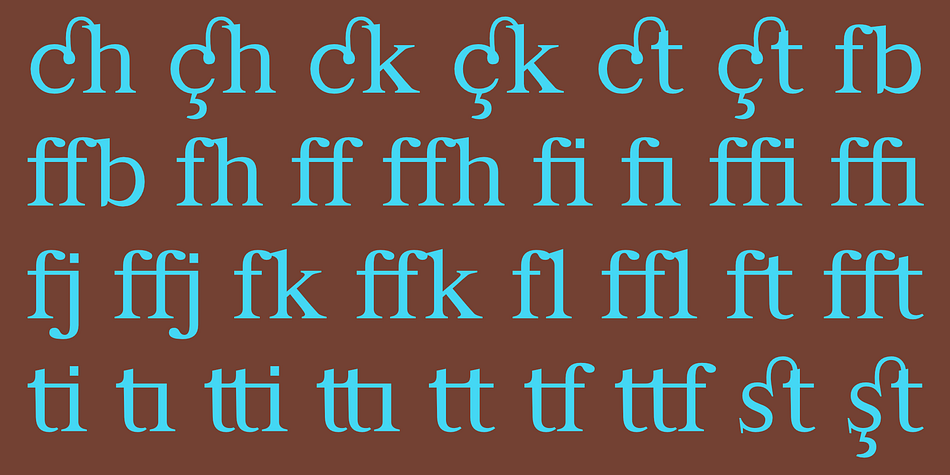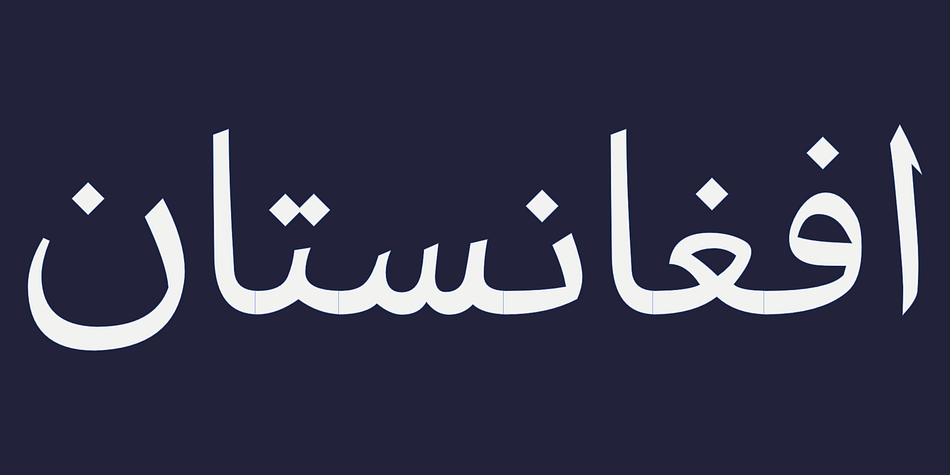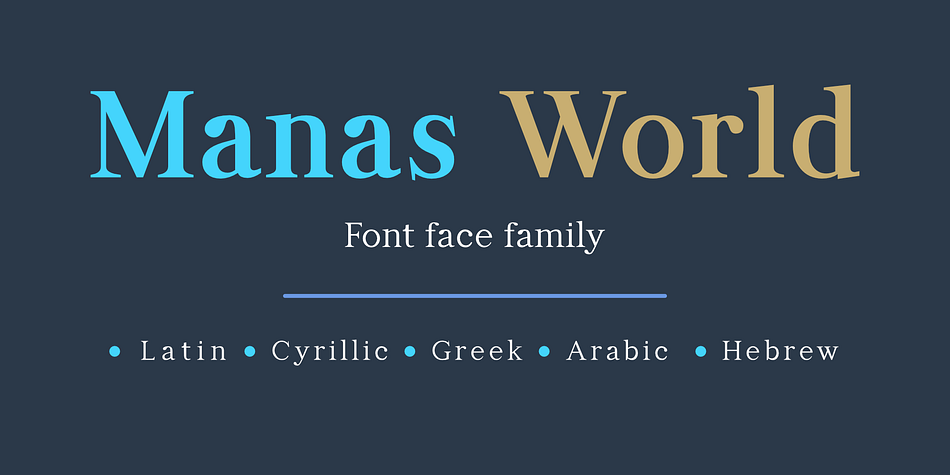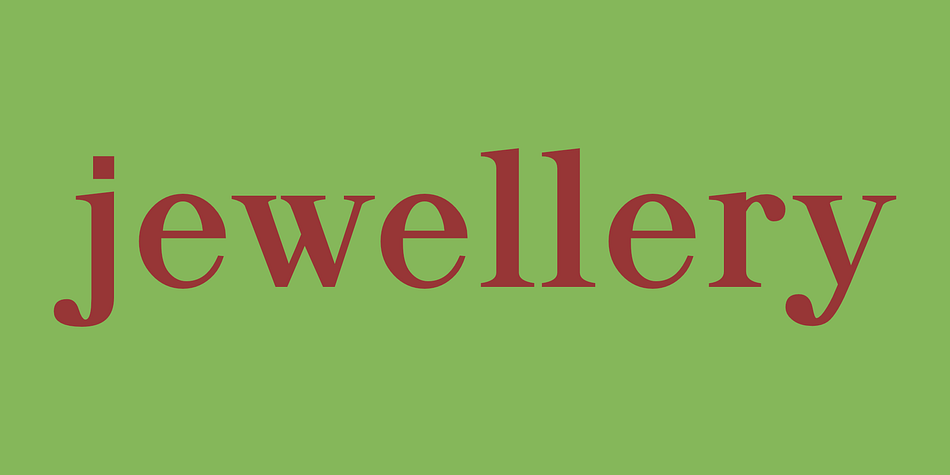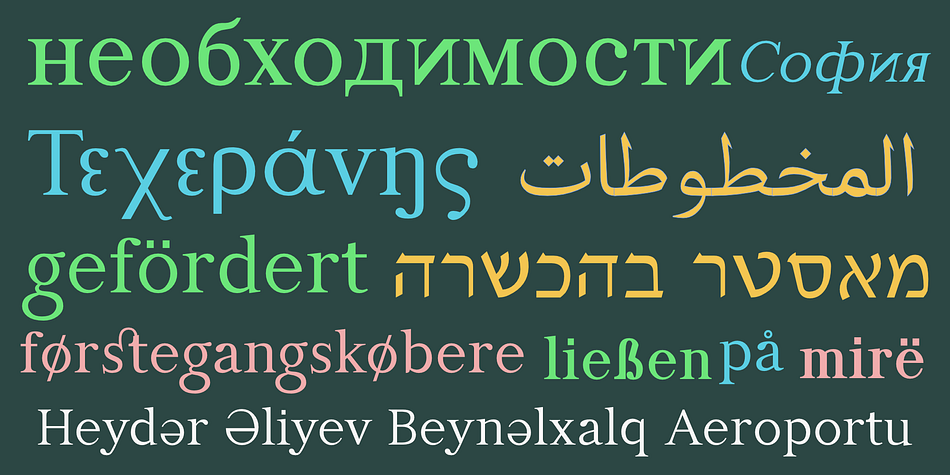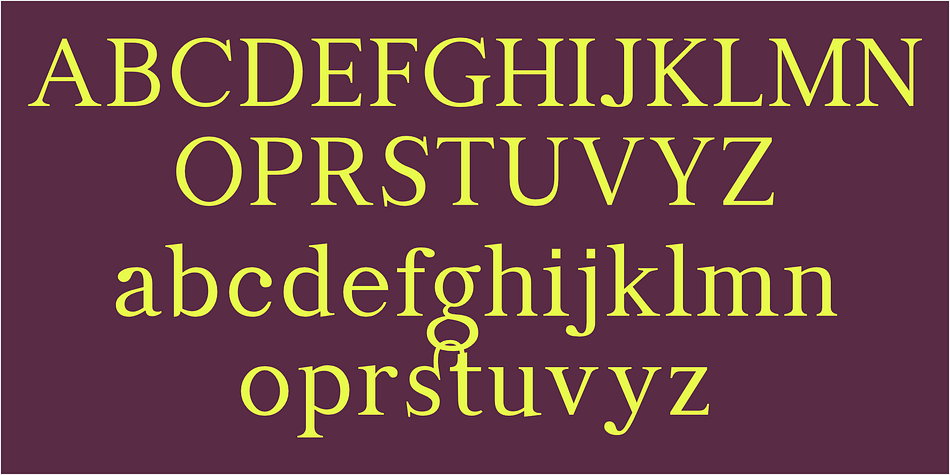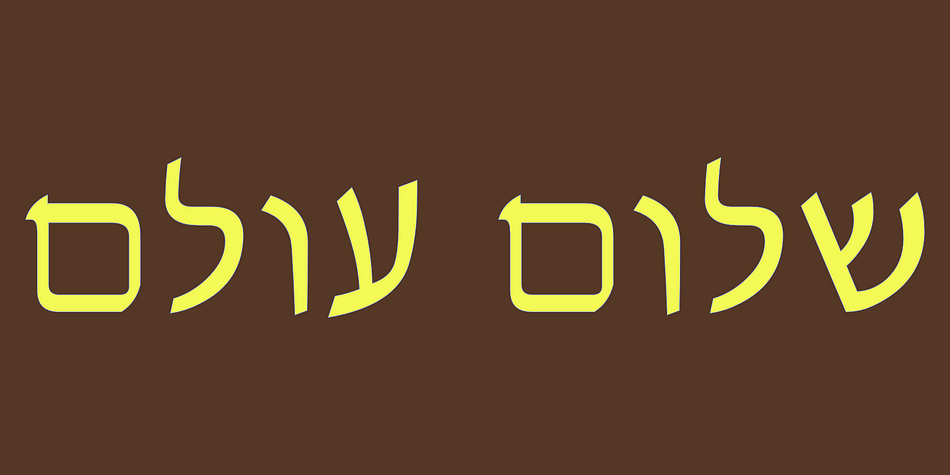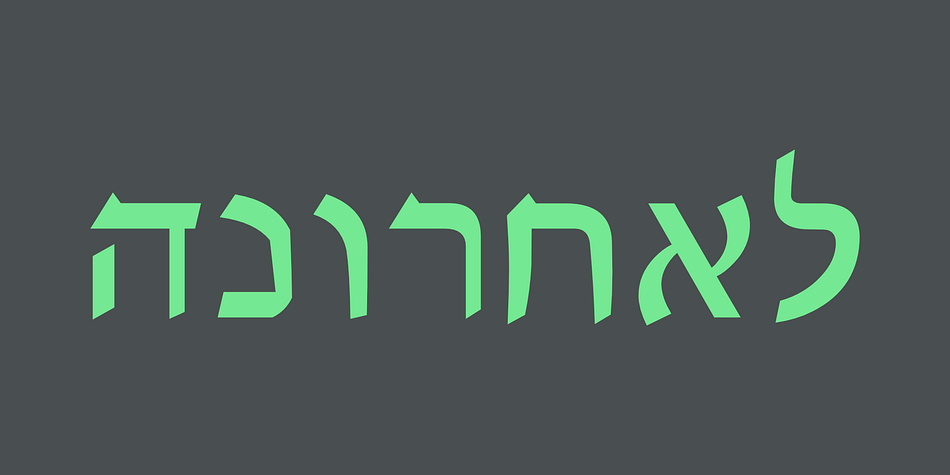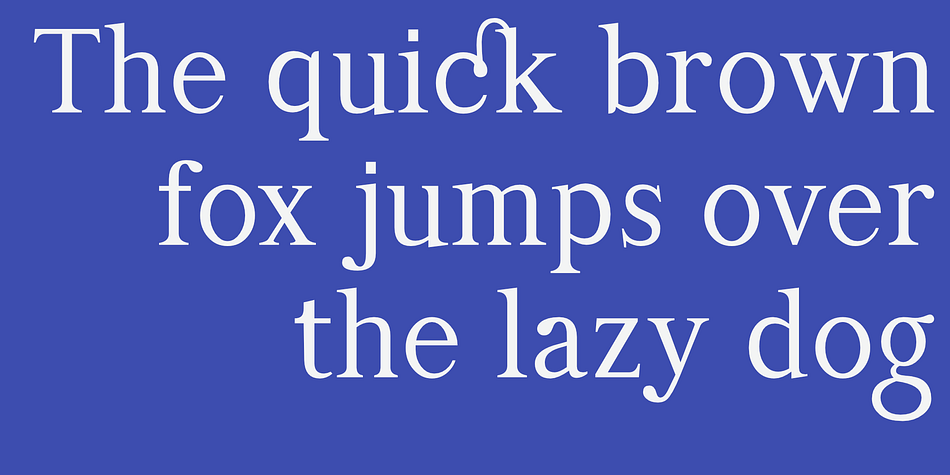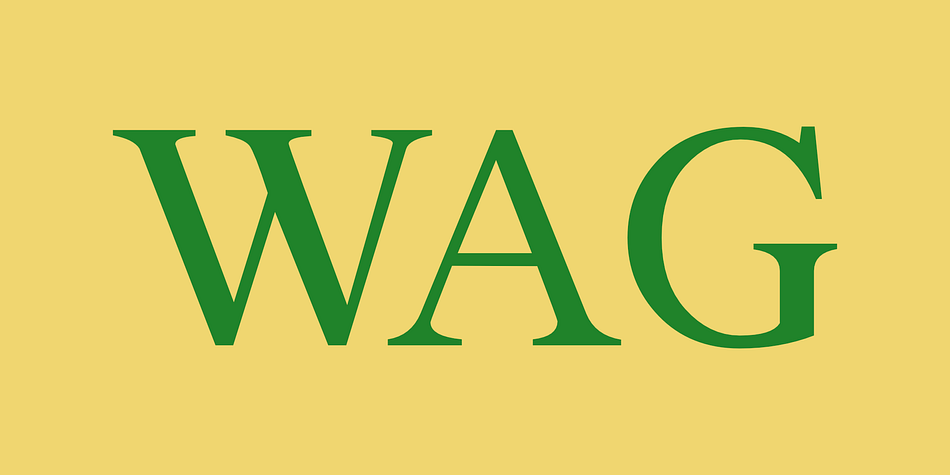
Designed by İsmail AYDIN, Manas World is a serif font family. This typeface has thirty-six styles and was published by Fontuma.
Manas World
Manas is the name of the epic of the Kyrgyz Turks. The font family is also designed with serifs to reflect the characteristics of the epic from which it is named. This typeface, which is a serif, consists of three families:
▪ Manas: Font family containing Latin letters
▪ Manas Pro: Font family including Latin and Arabic alphabets
▪ Manas World: A family of typefaces including Latin, Cyrillic, Greek, Arabic and Hebrew alphabets
Manas world font family promises a lot to those looking for a multilingual serif font. Because this font is new and multilingual. Moreover, it is aesthetic. Therefore, Manas World font can be used easily in broadcasting and printing areas, as well as in digital environments. In addition, the fact that the font includes different styles from light to extra-bold provides an important advantage in terms of working comfort. The font family includes open type features, as well as a large number of ligatures, small caps, modifiers, and currency symbols of many countries. One of the important features of the Manas World font family is the wide range of languages it supports.